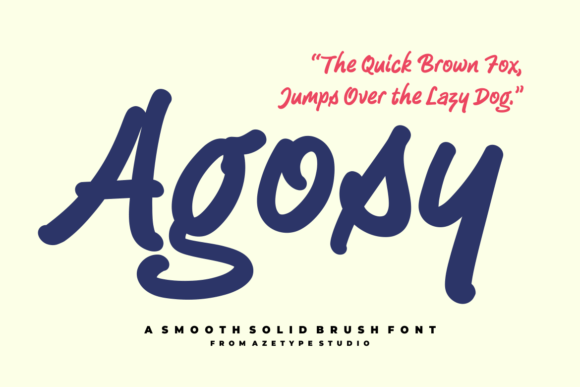
Get ready to unveil the Agosy font, a captivating creation from Azetype, exclusively available on our platform! This remarkable script font will leave you mesmerized with its striking charm and remarkable versatility. Step into the world of modern logos, branding, posters, and social media designs, where Agosy shines as the ultimate choice for your creative endeavors.
Agosy's smooth and solid brushstrokes exude a sense of casual elegance, making it remarkably down-to-earth and readable. Its inherent versatility allows it to seamlessly blend into any background, whether bustling or minimal, while simultaneously commanding attention as a standalone headline. Its ability to effortlessly adapt to various contexts makes Agosy an indispensable tool for designers seeking to make a lasting impression.
With Agosy, the possibilities are endless. Dive into the realm of modern logos, where Agosy's distinct character lends a touch of sophistication and memorability. Craft captivating branding designs that resonate with your audience, leaving an unforgettable mark on their minds. Create stunning posters that transport viewers into a world of visual enchantment, and elevate your social media presence with eye-catching graphics that demand attention.
Unlock your creativity and harness the power of Agosy to craft designs that speak to the soul. Its user-friendly nature makes it accessible to both seasoned professionals and those just starting their design journey. Join the ranks of satisfied users who have discovered the boundless potential of Agosy and transformed their creative visions into captivating realities.